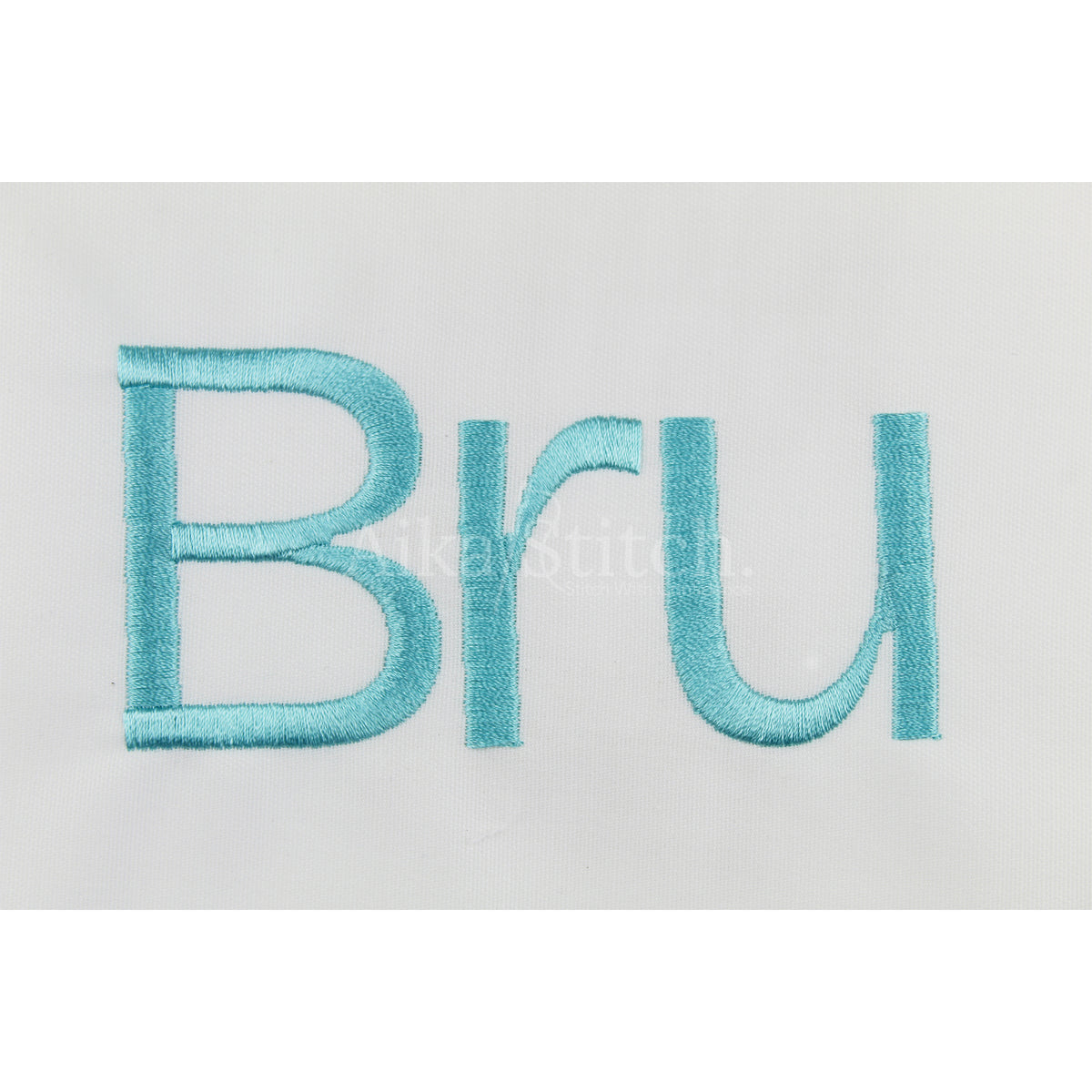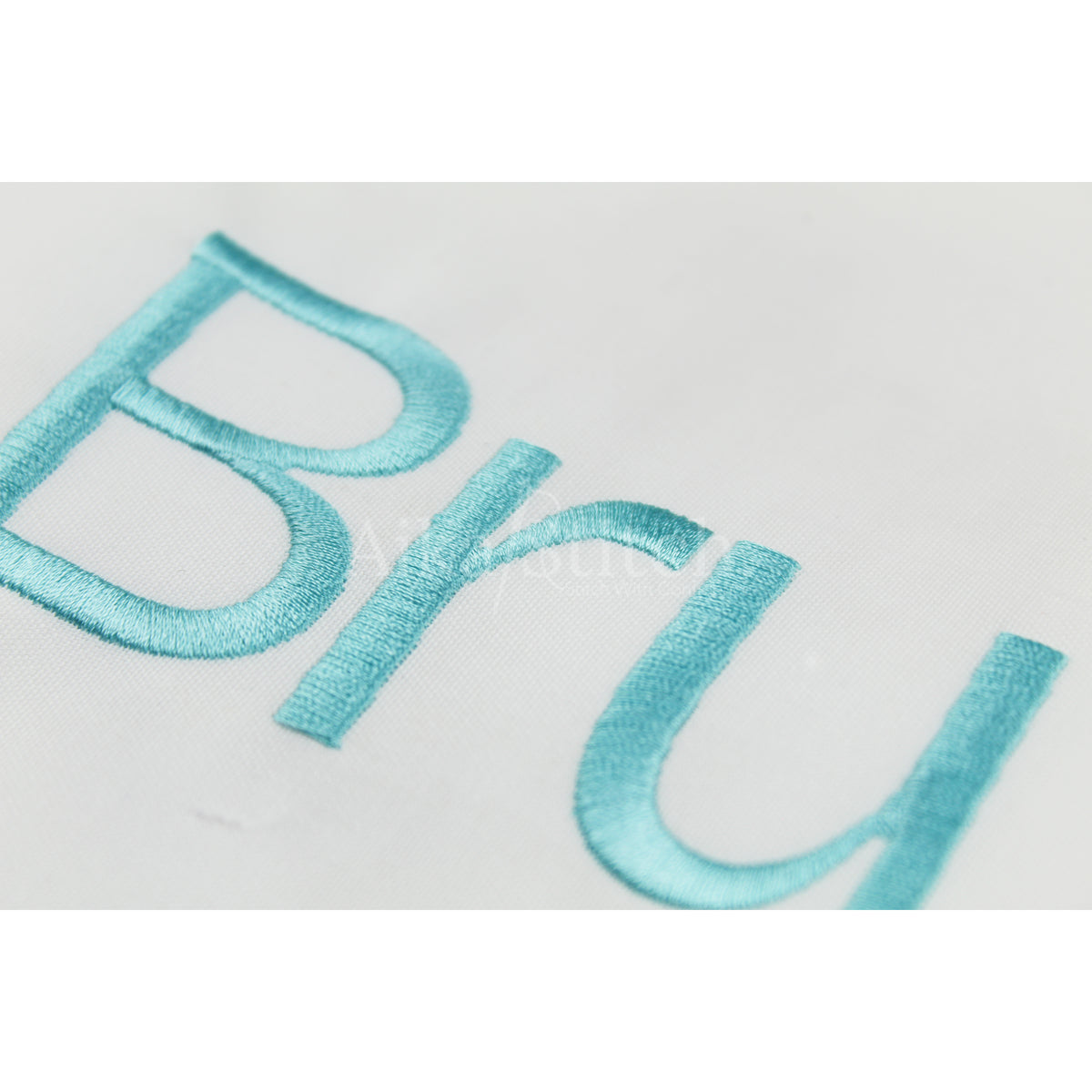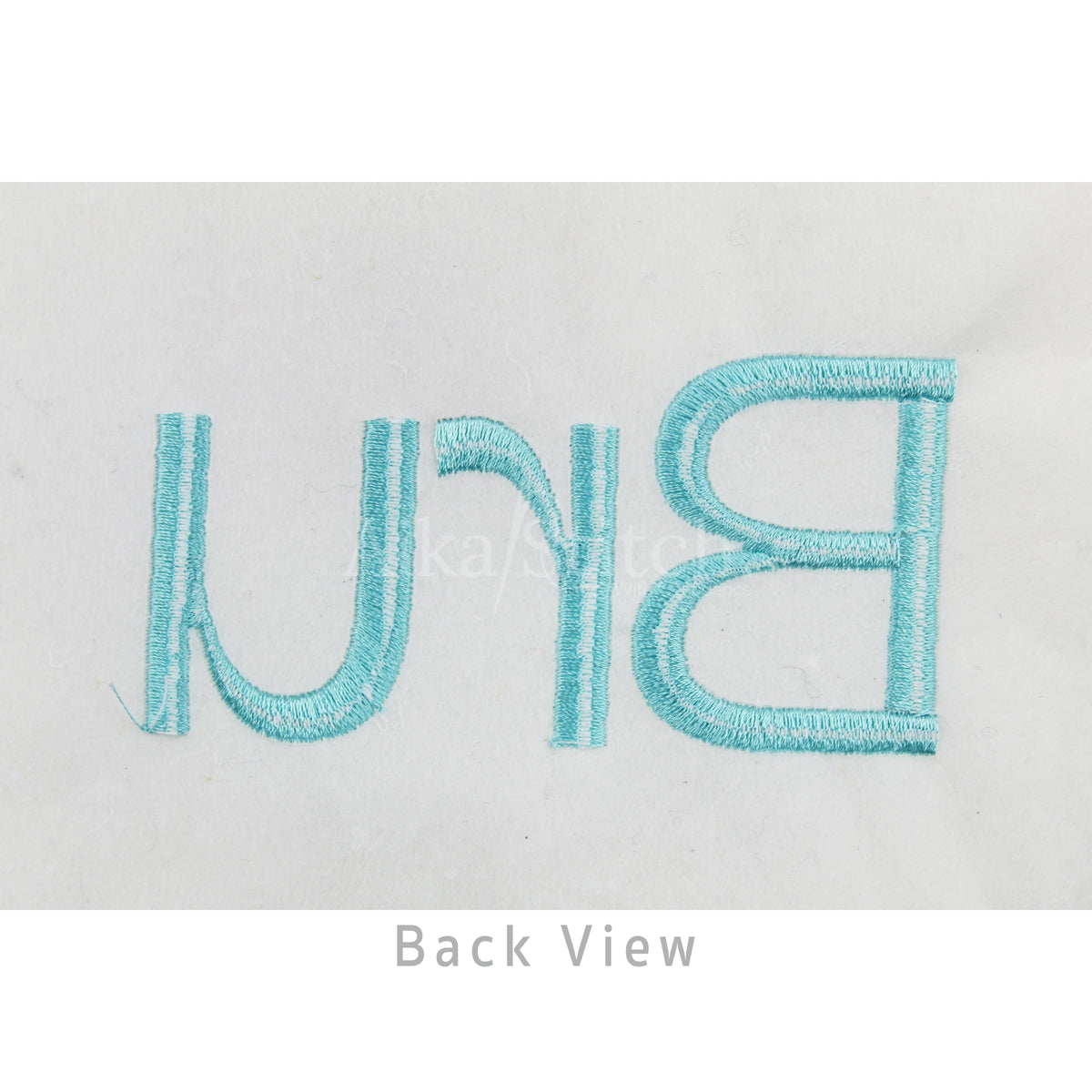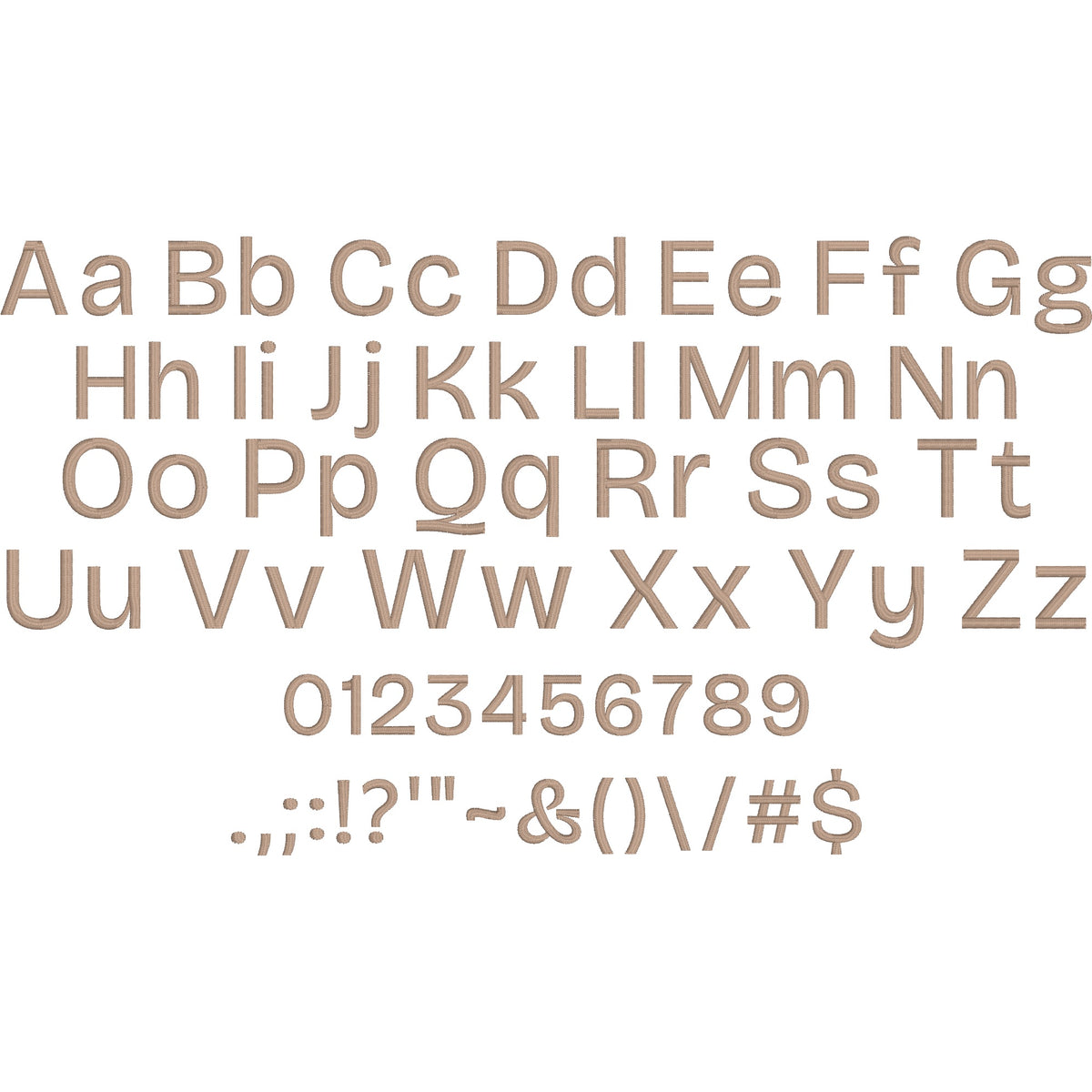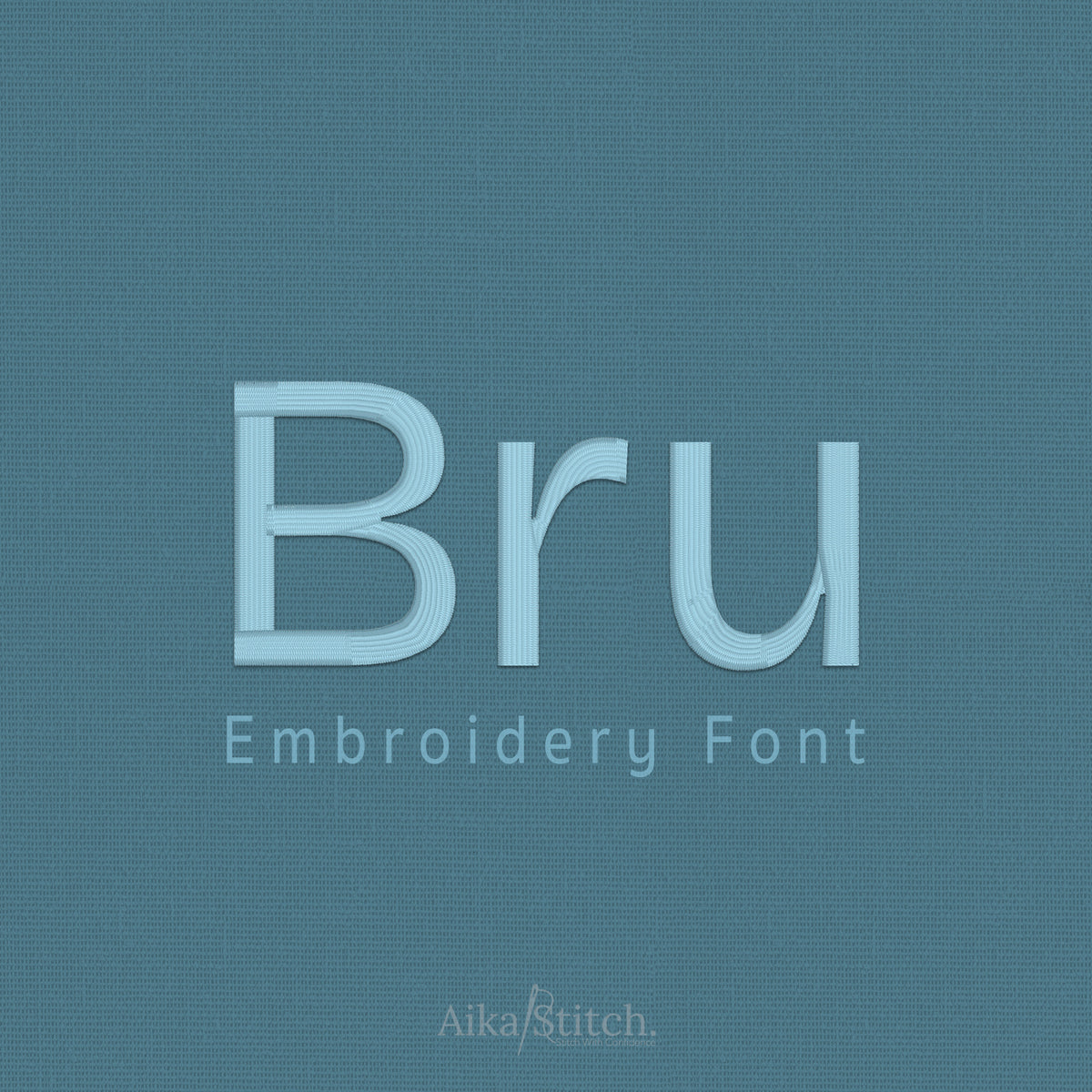
Bru Modern Simple Embroidery Font
Bru is a Modern Simple machine embroidery font featuring beautiful satin stitch lettering. Perfect for shirts, towels, hats, baby gifts, monograms, and small business embroidery projects.